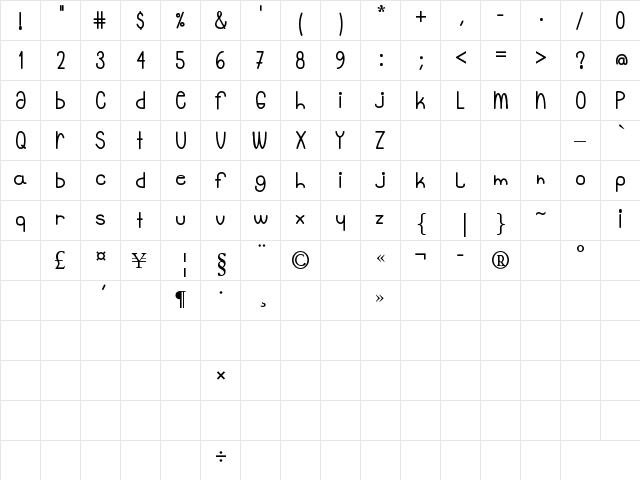
Oh_Rosita Regular
| Designer | Vickie Martinez |
Design Context for Oh_Rosita Typeface
Oh_Rosita offers clean, dependable letterforms without strong stylistic allegiance, making it a practical choice for designers who need flexibility.